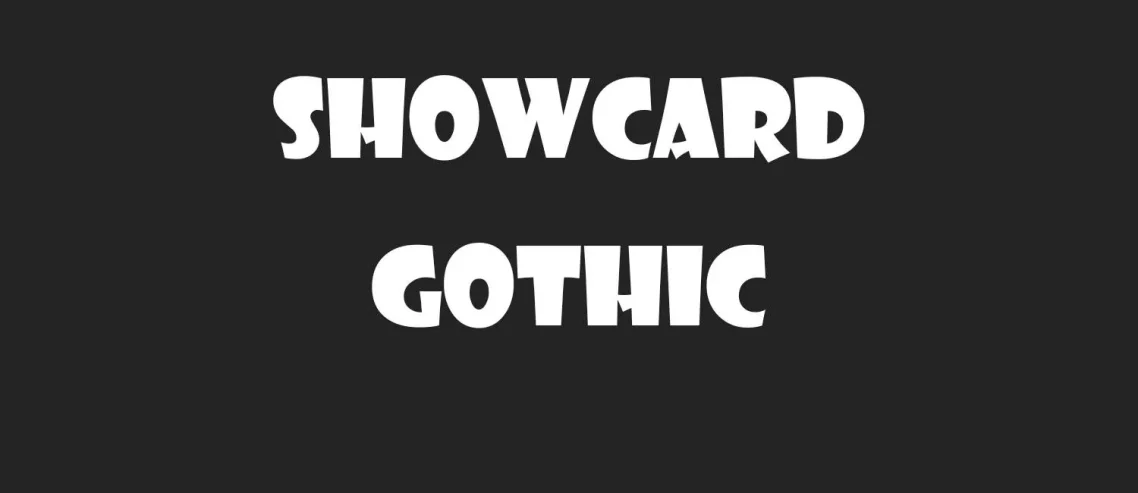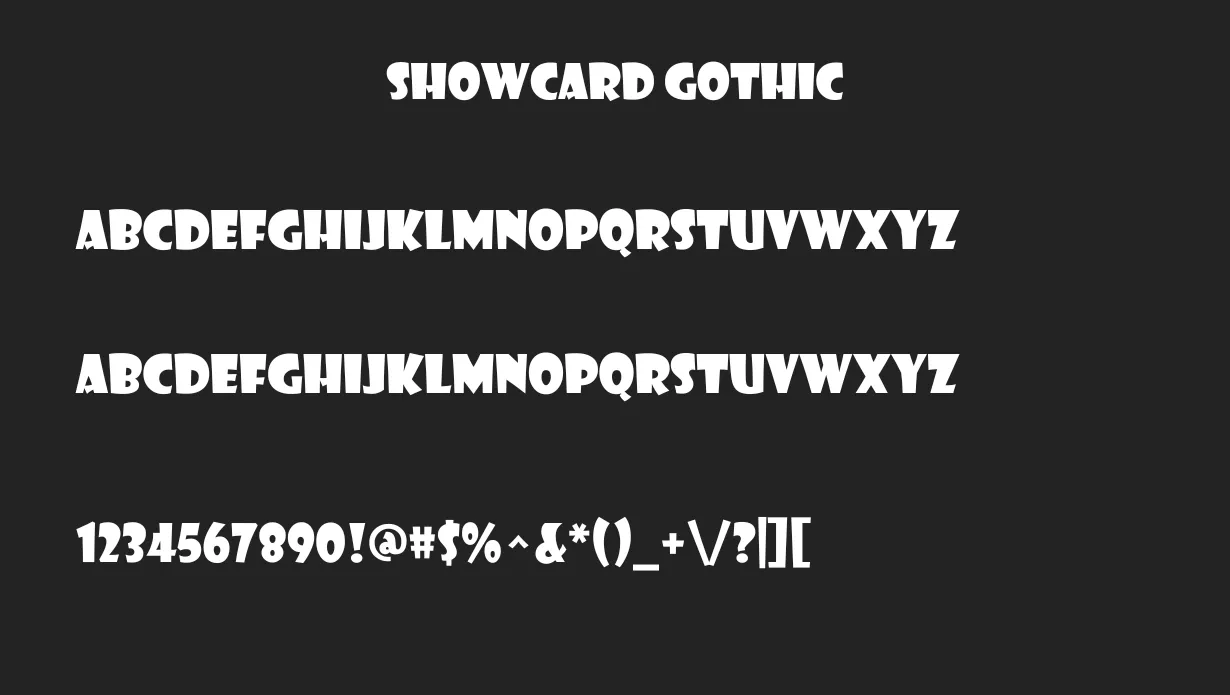
Showcard Gothic Font is a bold and attention-grabbing typeface with a distinctive and theatrical style. This font is often used for headlines, posters, or any project that demands a bold and impactful statement.
With its sharp lines and exaggerated features, Showcard Gothic Font adds a touch of drama and flair to your text, making it an ideal choice for designs that require a bold and theatrical presence.
Designer | Font Bureau |
Style | Fancy |